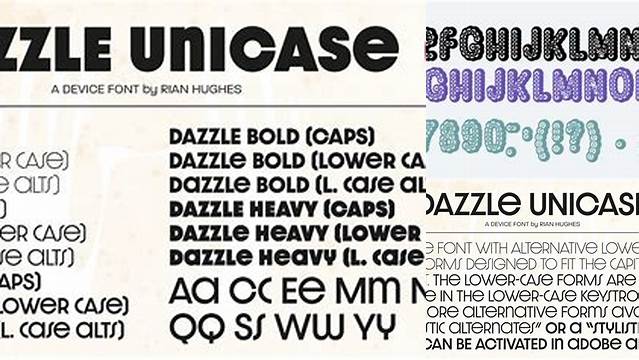
Dazzle Unicase Font: Free Download & Design Ideas
Are you guys looking to add a unique touch to your design projects? Look no further! The Dazzle Unicase font is here to save the day. This font, with its distinctive and modern style, is perfect for a wide range of applications, from branding and logos to posters and web design. In this comprehensive guide, we'll delve deep into what makes Dazzle Unicase so special, where you can find it for free in TTF format, and how to make the most of it in your creative endeavors.
What Makes Dazzle Unicase Font So Special?
First off, let's talk about what makes Dazzle Unicase font stand out from the crowd. Its unicase design, where uppercase and lowercase letters blend seamlessly, gives it a contemporary and playful feel. This isn't your run-of-the-mill font; it's got character! The clean lines and geometric shapes make it highly legible, yet its quirky personality ensures it'll leave a lasting impression. Whether you're designing a logo for a tech startup, crafting a poster for a music festival, or revamping your website's typography, Dazzle Unicase can bring a fresh and modern vibe to your work.
The versatility of Dazzle Unicase is another key factor in its appeal. It's not just a pretty face; it's a workhorse. This font works wonders in both display and body text, making it a valuable asset for any designer. Imagine using it for eye-catching headlines and then seamlessly transitioning to body text that's easy on the eyes. That's the magic of Dazzle Unicase! Plus, its modern aesthetic pairs well with various design styles, from minimalist and industrial to futuristic and artistic. You can mix and match it with other fonts to create unique typographic hierarchies and visual interest.
Moreover, the attention to detail in the design of Dazzle Unicase is evident in every glyph. The consistent stroke weight, balanced letterforms, and subtle nuances give it a polished and professional look. This level of refinement is what sets it apart from many other free fonts out there. It's a font that designers can rely on for projects that demand a high level of sophistication and style. So, if you're aiming for a design that's both modern and timeless, Dazzle Unicase is definitely worth considering. It’s a font that speaks volumes without saying too much, making it an excellent choice for projects that need to convey a sense of innovation and creativity.
Don't be afraid to experiment and push the boundaries of your creativity with Dazzle Unicase. Try different combinations, weights, and sizes to discover the perfect look for your project. Pair it with other fonts to create unique typographic hierarchies and visual interest. And most importantly, have fun! Design is all about expressing yourself and bringing your ideas to life, and Dazzle Unicase can be your trusty companion on this exciting journey. So go ahead, download Dazzle Unicase, unleash your creativity, and dazzle the world with your designs!